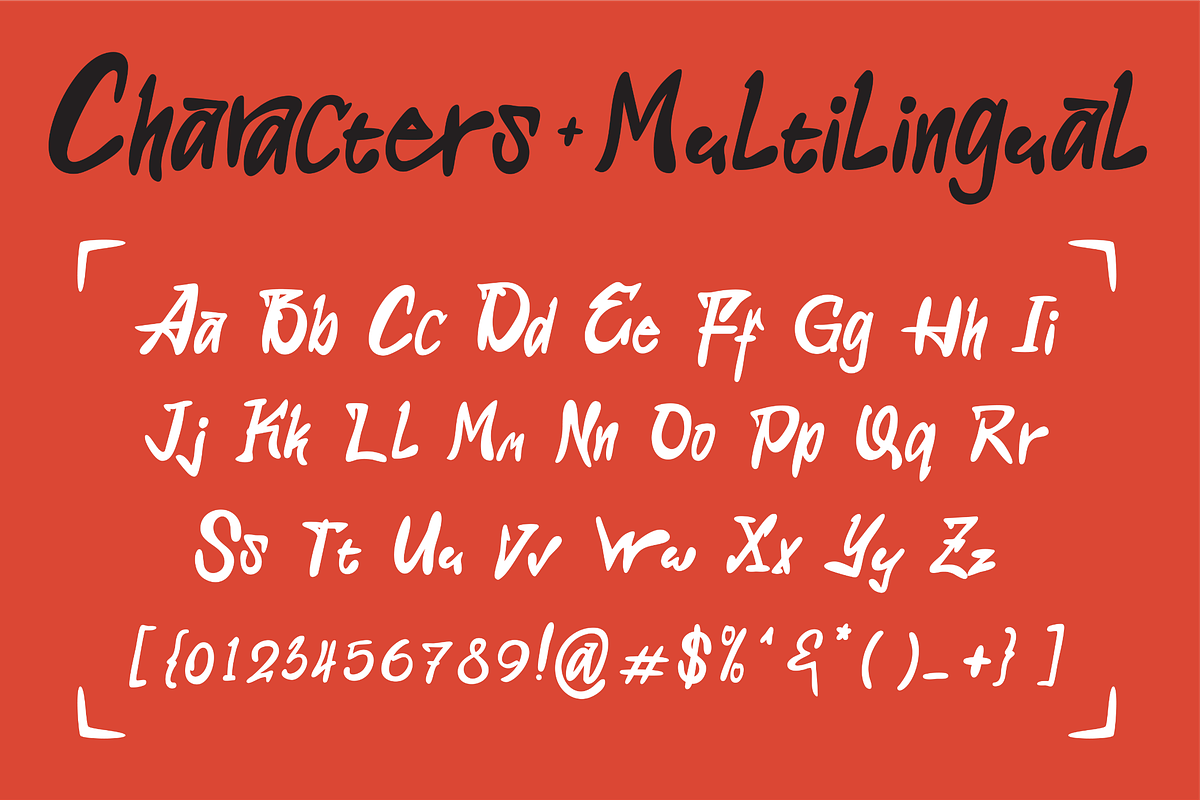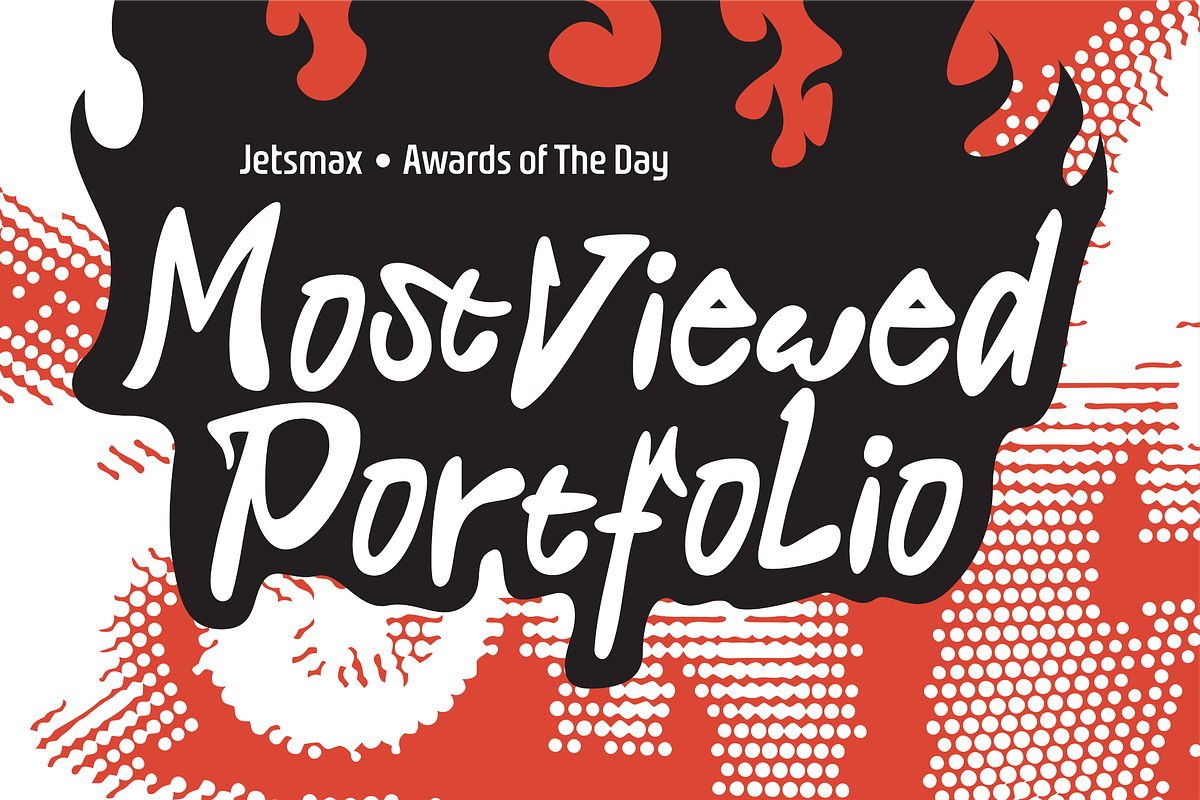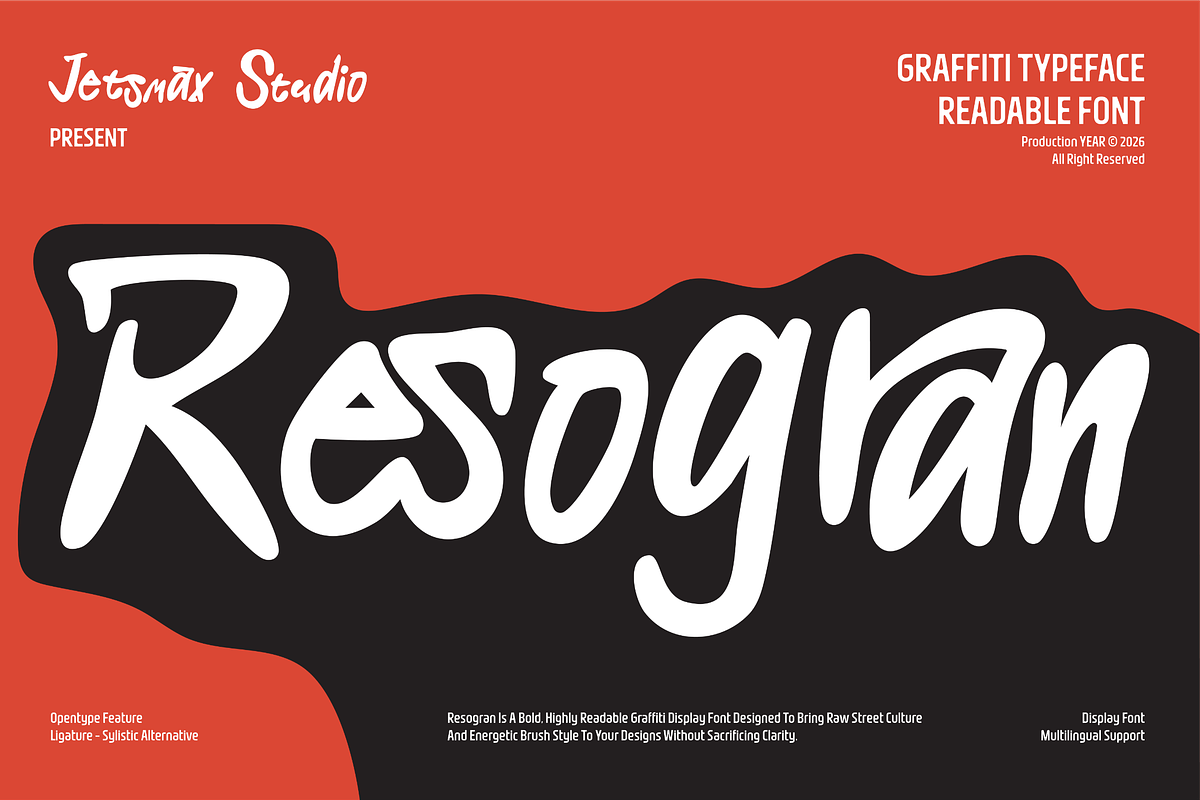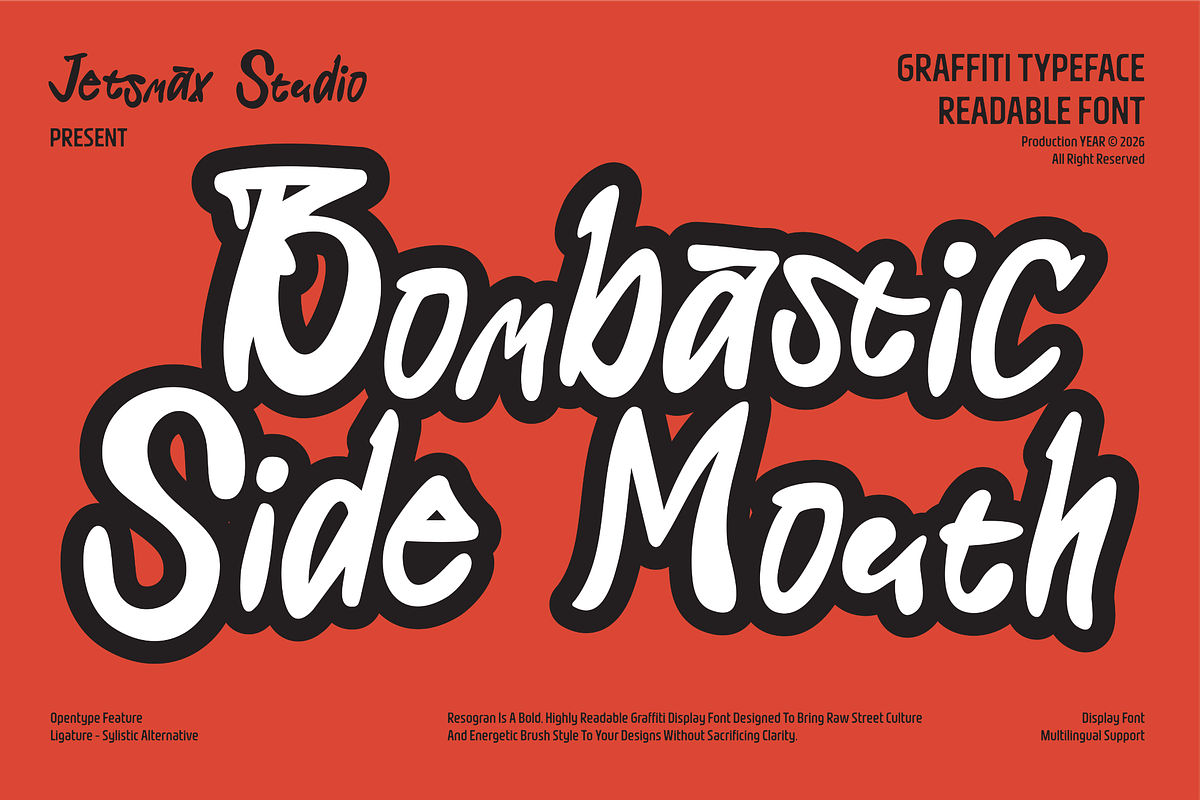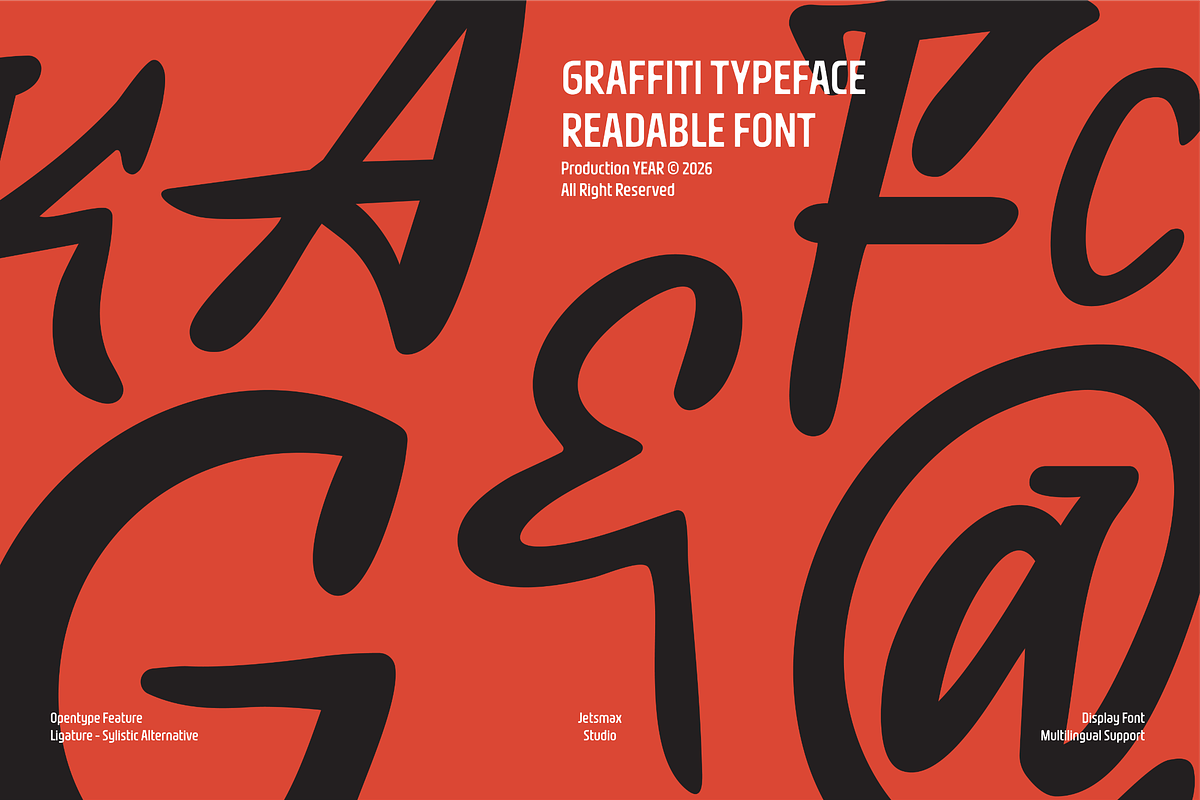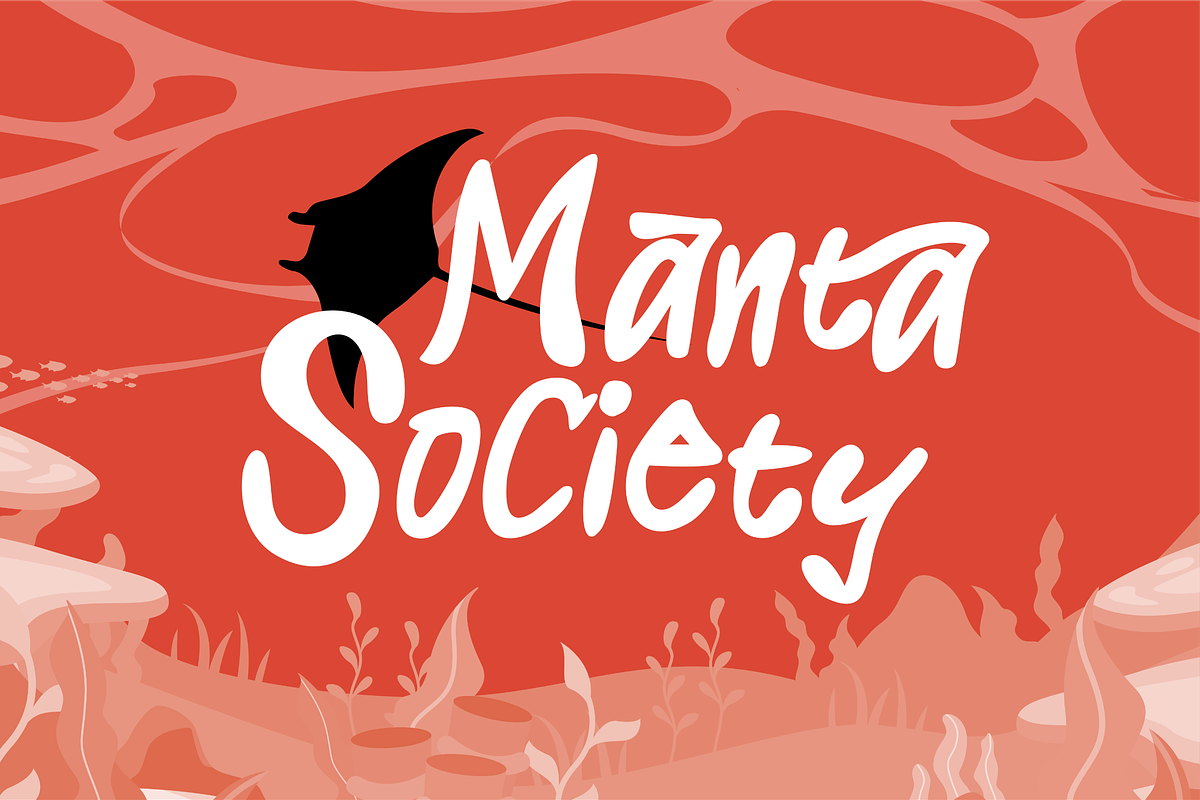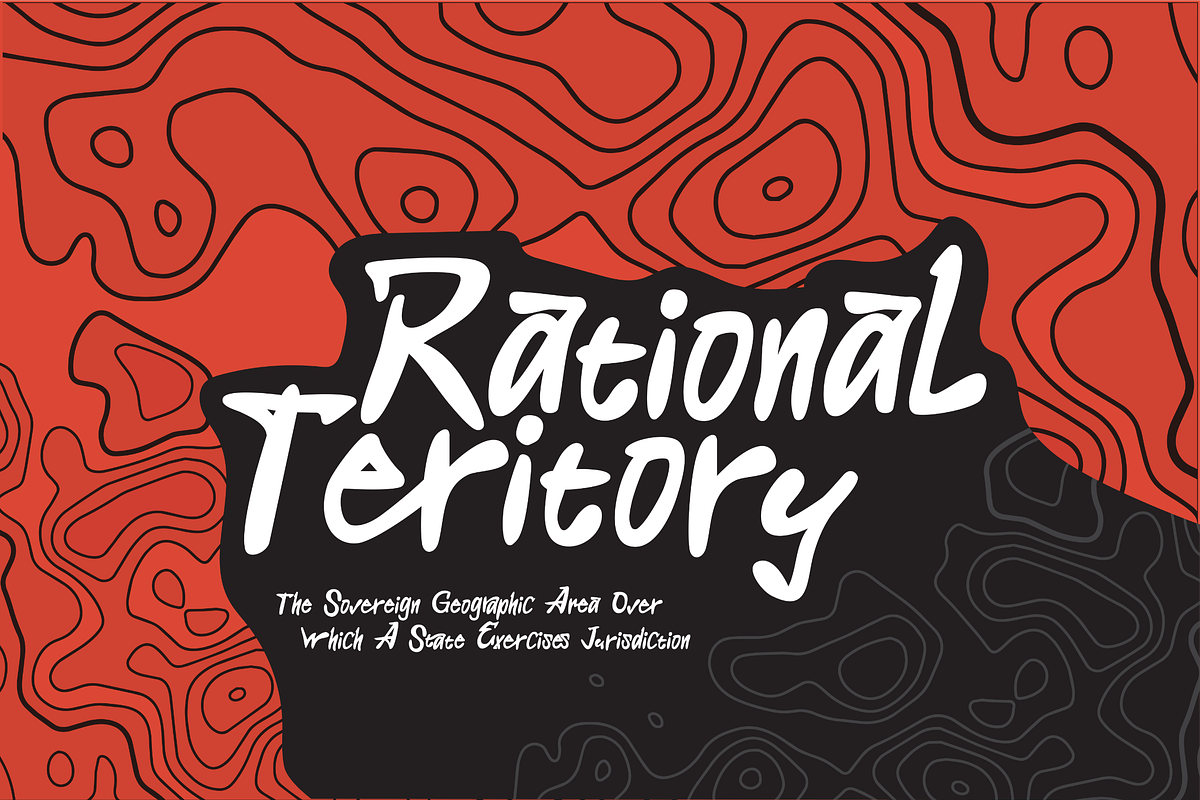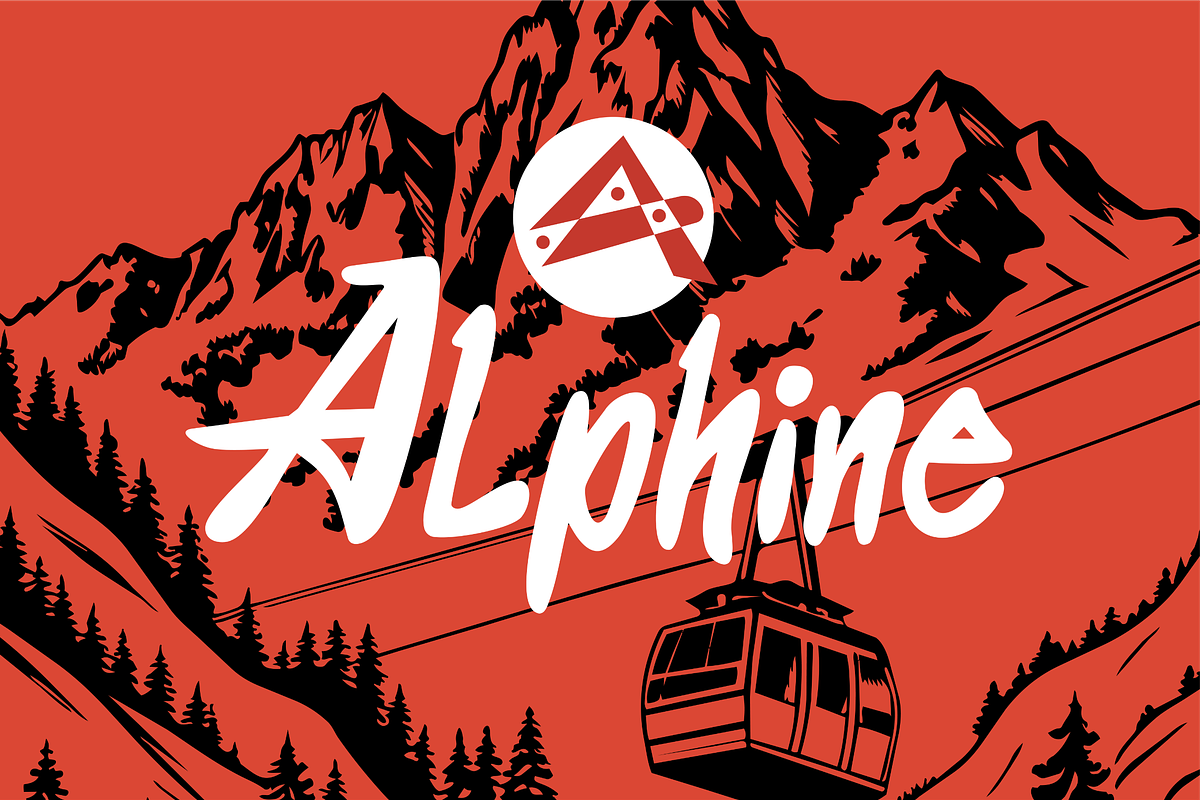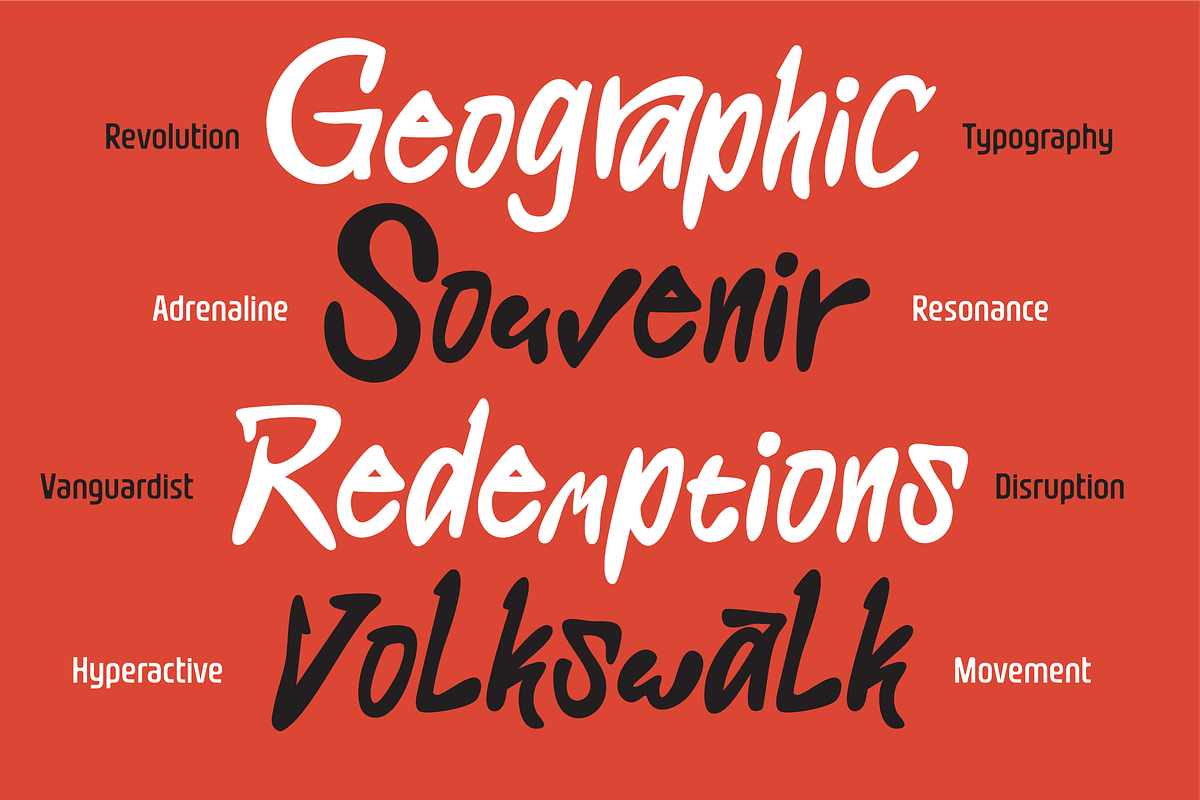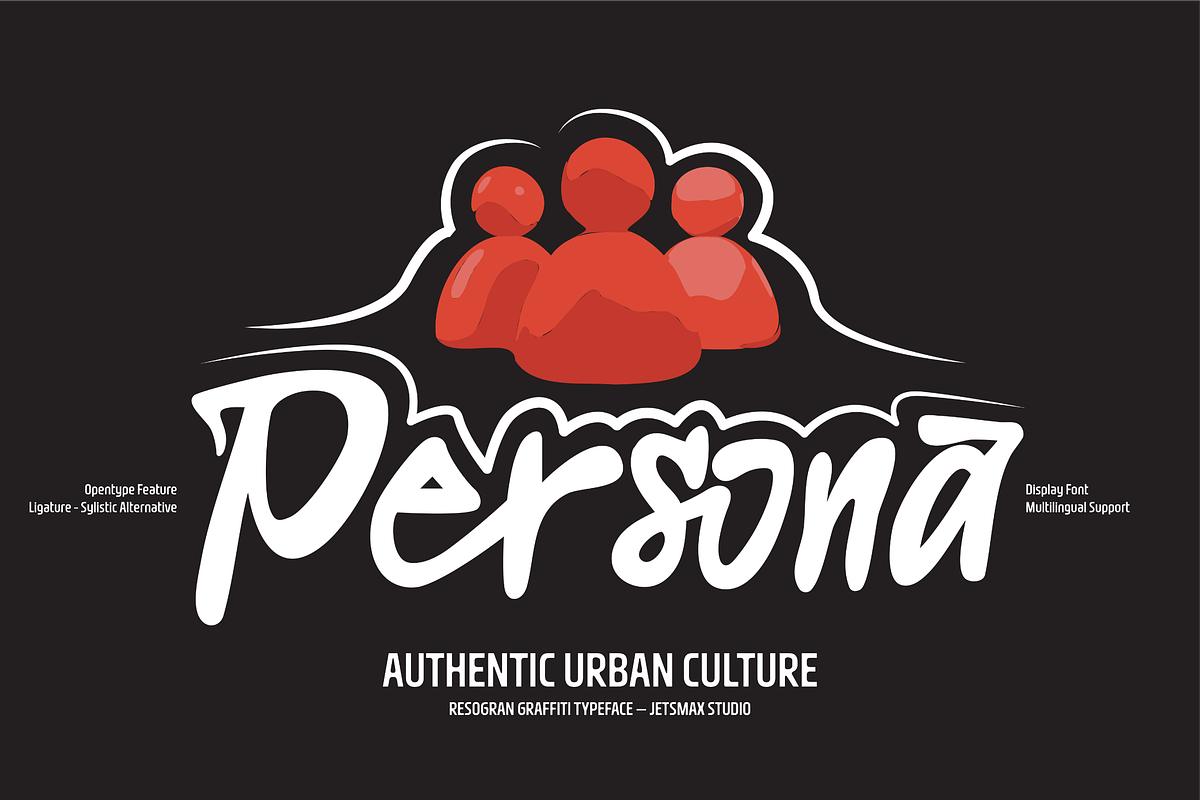
Resogran
Resogran is an authentic, bold graffiti font inspired by modern street art and tag culture. Crafted with dynamic marker strokes, it combines raw urban energy with clean legibility, making it easy to read across any design format. Designed to give your creative projects an unmistakable edge, Resogran brings the spontaneous flow of handheld markers directly to the digital canvas—delivering high-impact visuals without sacrificing readability.